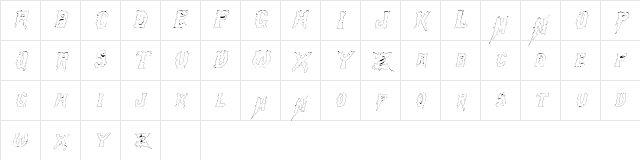
SwampTerrorOutline Italic
SwampTerrorOutline Family
SwampTerrorOutline Italic
Design Context for SwampTerrorOutline
SwampTerrorOutline is built around its visual character rather than neutral utility - its distinctive forms are designed to make an impression at display sizes. The slanted form adds forward momentum and visual energy.
Font Pairing: Pair with a clean neutral sans-serif for body copy to let SwampTerrorOutline's character lead without overwhelming the composition.
Pro Tip: Use SwampTerrorOutline exclusively at display sizes - it was designed to be seen, not read at length. Let a neutral companion handle body copy.